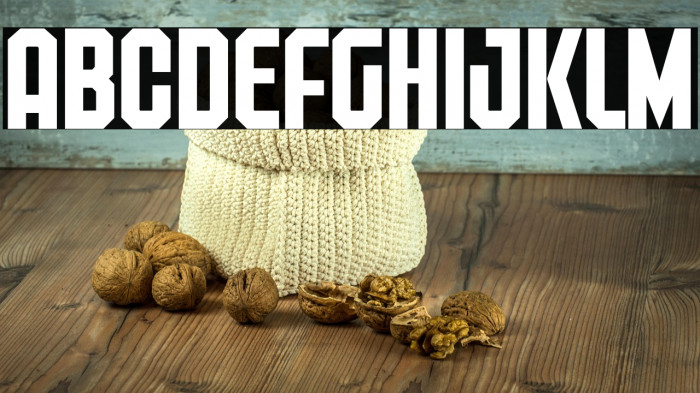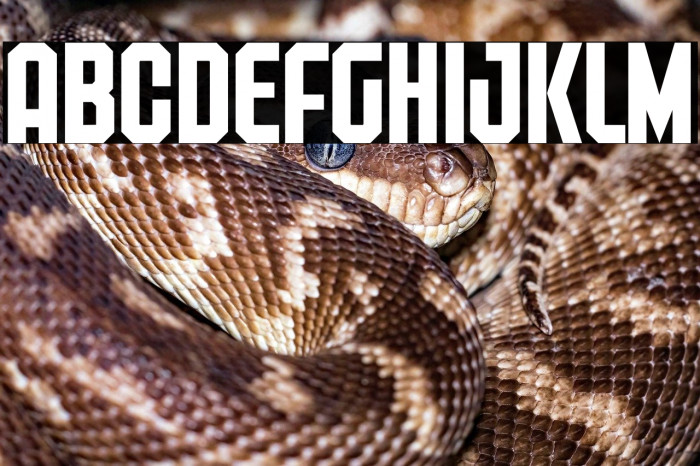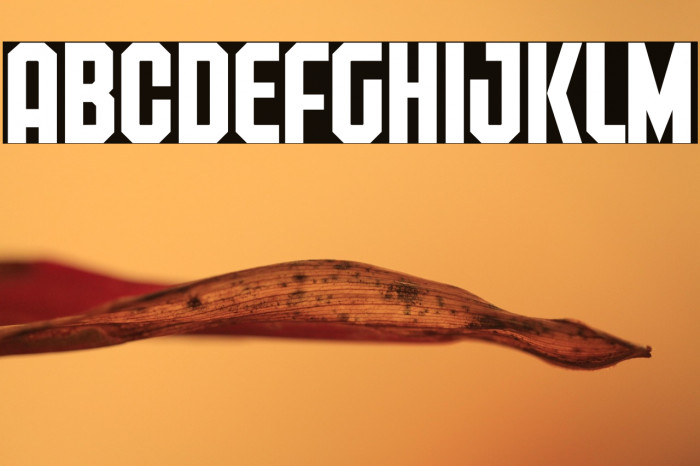
Freiburg PERSONAL USE Font
Freiburg PERSONAL USE Description
This font features a bold, geometric design with strong, angular lines and a distinct blocky appearance. The uppercase letters are uniform in height, creating a cohesive and structured look. The characters are tightly spaced, enhancing the compact and impactful nature of the font. The numbers and special characters maintain the same bold and angular style, ensuring consistency across all elements. This font is highly legible and commands attention, making it suitable for various display purposes.
Proposed ProjectsIdeal for posters, headlines, branding, and any project requiring a strong visual impact.